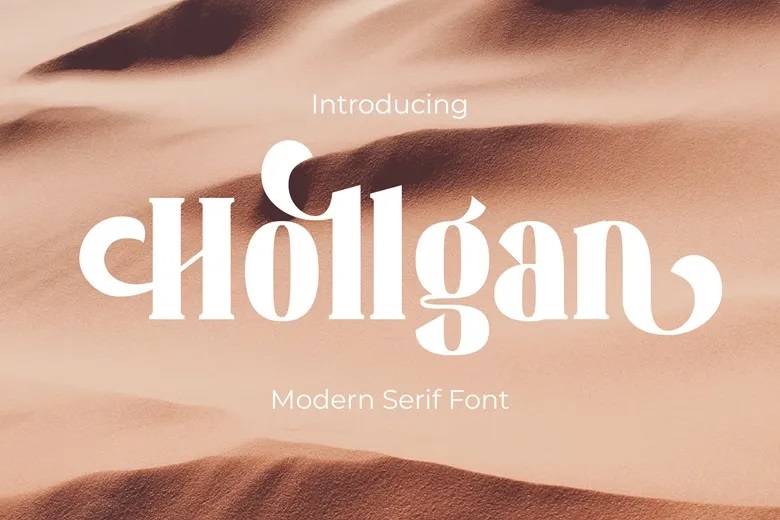
Hollgan Font
Hollgan is a high quality serif typeface that is designed by Rismatype and is available for free download and personal use. The free version provides all uppercase and lowercase letters and a few special characters too.
Hollgan Serif Font